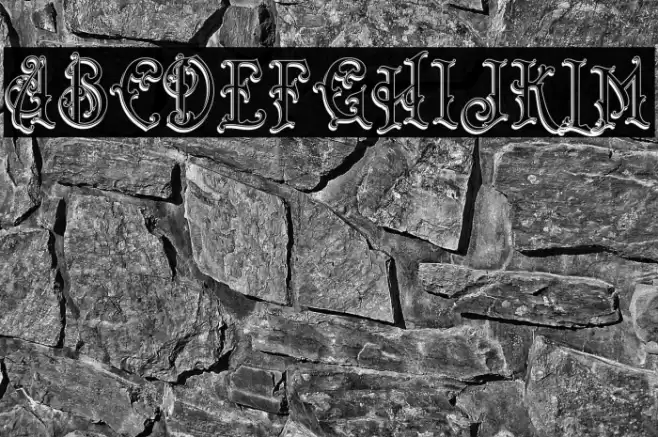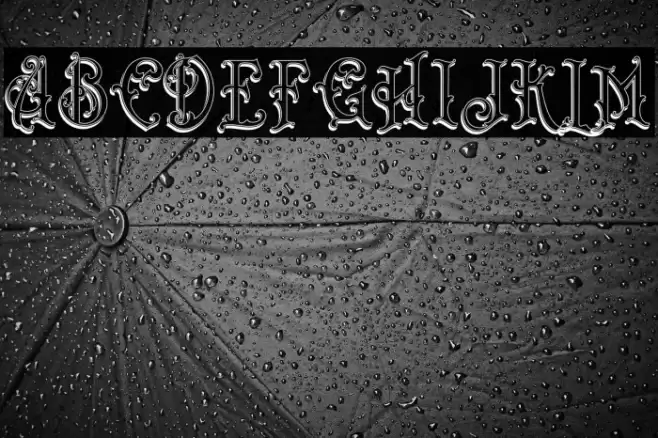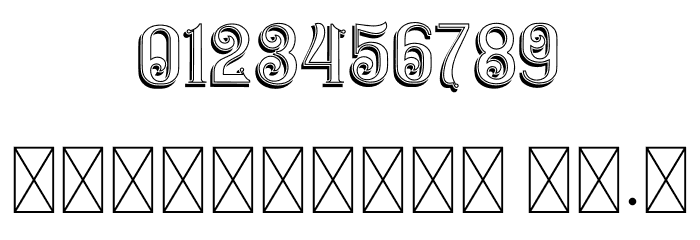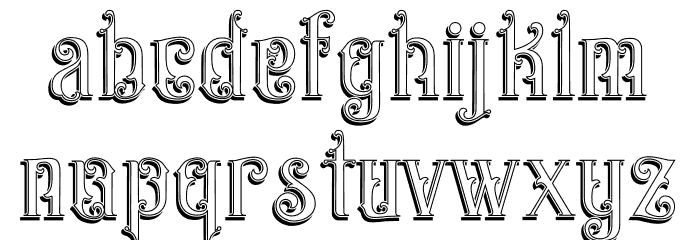
Bandits Shadow Font
Bandits Shadow Description
This font features a bold and decorative style with intricate shadowing that gives it a three-dimensional appearance. The characters are ornate, with elaborate serifs and flourishes that add a sense of drama and elegance. The uppercase letters are particularly striking, with their complex curves and detailed embellishments. The lowercase letters maintain the same level of detail, ensuring consistency throughout the typeface. The numbers and special characters are equally decorative, making this font suitable for eye-catching designs.
A bold, decorative font with intricate shadowing and ornate serifs from Uncategorized fonts.
- Proposed Projects: Ideal for vintage-themed posters, book covers, branding for luxury products, or any project requiring a dramatic and elegant typeface.
- Overall Style: Vintage